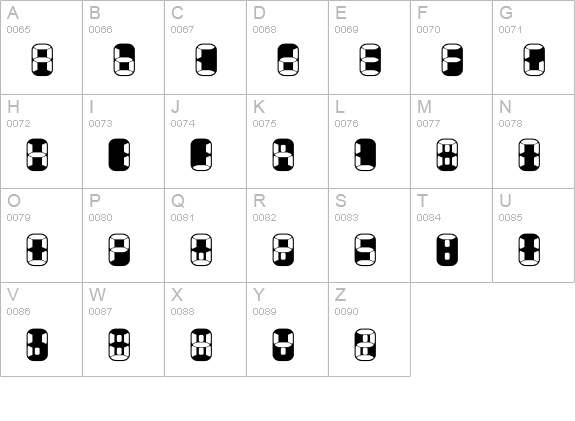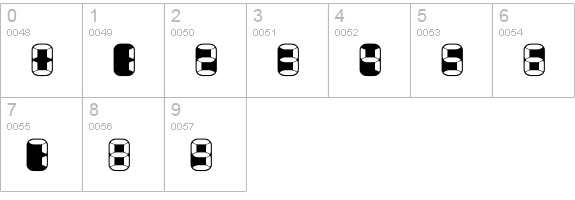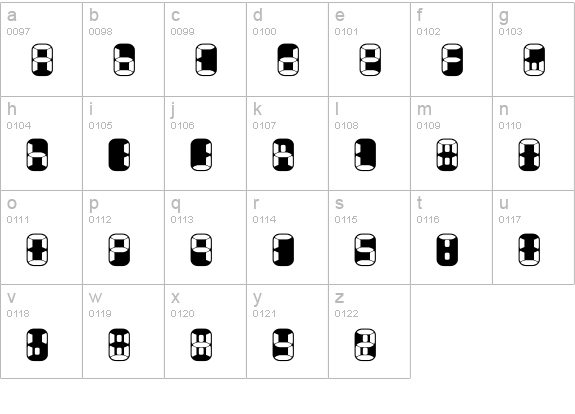
Introducing Readout-TwoBack, an extraordinary font that seamlessly combines modernity with a touch of retro charm. This font is a visual representation of sophistication, making it a perfect choice for a wide range of design projects. Readout-TwoBack features a unique blend of bold lines and intricate details, resulting in a visually striking typeface that demands attention. Its distinct geometric shapes and clean lines give it a futuristic appeal, while its subtle curves and nostalgic elements add a hint of nostalgia. This unique fusion of past and future creates a font that effortlessly stands out from the crowd. With its versatility, Readout-TwoBack can be used across various design applications. Whether you're designing a logo, creating eye-catching headlines, or crafting captivating posters, this font will elevate your work to new heights. Its legibility and readability make it perfect for both print and digital media, ensuring that your message reaches your audience with clarity and impact. But what makes Readout-TwoBack even more enticing is that it is freely available to download at FontsMarket.com. This means that you can now access this exceptional font without any hassle or cost. Embrace the freedom to experiment and explore the possibilities of Readout-TwoBack, as it allows you to effortlessly create stunning designs that captivate and inspire. So why wait? Download Readout-TwoBack today, and let your creativity soar as you immerse yourself in a world of limitless design possibilities. Experience the perfect harmony of past and future, all within the confines of this remarkable font. With Readout-TwoBack, you're not just using a font - you're making a statement.